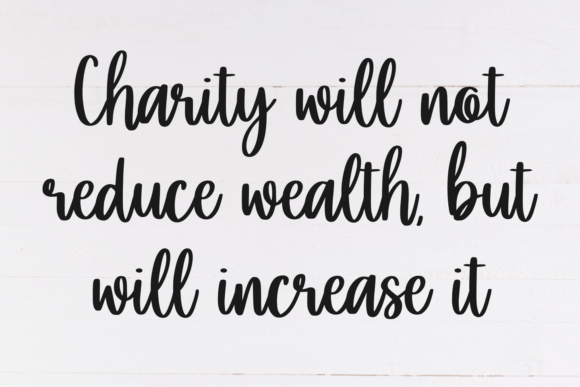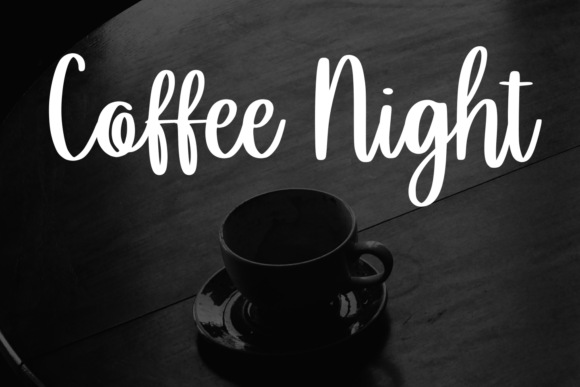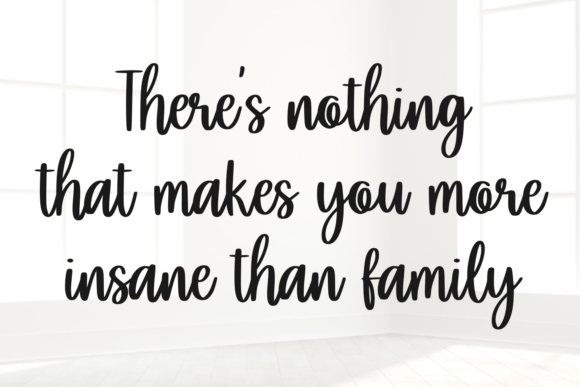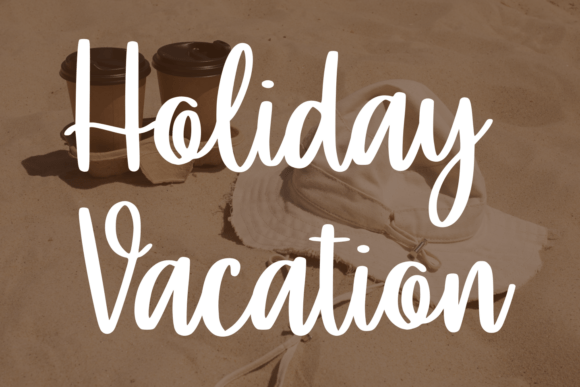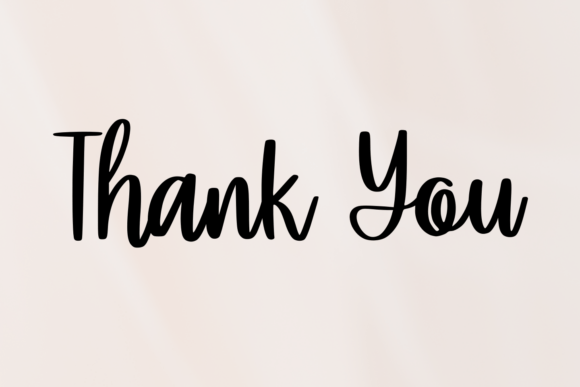
Introducing Breakthru Font: The Epitome of Simple, Handwritten Elegance
In the realm of typography, few fonts manage to convey the essence of honesty and directness while maintaining an air of elegance. Breakthru Font is one such remarkable typeface that achieves this delicate balance with remarkable finesse. Designed with the intention of feeling honest, direct, and effortlessly natural, Breakthru has quickly become a favorite among designers and crafters looking for a font that can bring a sense of calm and clarity to their work.
The Design Philosophy Behind Breakthru
At the heart of Breakthru’s design is a commitment to simplicity and authenticity. This handwritten script font eschews overly ornate or complicated strokes, opting instead for smooth, unforced movements that create a steady flow. This not only makes it easy on the eyes but also allows it to be versatile enough for use in both short phrases and longer texts. The clean and modest character shapes ensure that the message is conveyed clearly, without any visual noise to distract from the content.
Versatility and Application
One of the standout features of Breakthru Font is its versatility. Its design makes it well-suited for a variety of applications, ranging from personal and creative projects to more commercial uses. Here are some areas where Breakthru truly shines:
- Journals and Planners: Breakthru brings a personal touch to journals and planners, making them more inviting and engaging for users.
- Personal Branding: For those looking to establish a personal brand that feels approachable and genuine, Breakthru offers a typographic solution that feels both warm and professional.
- Quotes and Inspirational Content: The font’s clear and readable nature makes it perfect for quotes and inspirational content, allowing the message to take center stage.
- Casual Packaging: Breakthru can add a unique, handmade feel to product packaging, setting it apart in a market that often values individuality and authenticity.
Why Designers and Crafters Love Breakthru
Designers and crafters are drawn to Breakthru for several reasons:
- Clarity and Readability: In a digital age where clarity and readability are paramount, Breakthru offers a refreshing alternative to more traditional or ornate fonts.
- Emotional Connection: The font’s simple, warm, and quietly confident nature helps create an emotional connection with the reader, making it ideal for projects where engagement is key.
- Ease of Use: Breakthru’s versatility and legibility make it incredibly easy to use across a variety of platforms and mediums, from digital screens to print.
Breakthru Font stands out in the world of typography for its unique blend of simplicity, honesty, and elegance. Whether you’re a designer looking for a font that can bring a personal touch to your projects, or a crafter seeking a typeface that feels both natural and engaging, Breakthru is an exceptional choice. Its smooth strokes, clean character shapes, and versatile nature make it an invaluable tool for anyone looking to create content that feels genuine, clear, and effortlessly natural. With Breakthru, you can bring a calm, handwritten voice to your designs, fostering clarity and connection with your audience.
So, if you’re on the hunt for a font that embodies simplicity, warmth, and a quiet confidence, look no further than Breakthru Font. Its application possibilities are as vast as they are varied, promising to bring a refreshing sense of authenticity to your work.